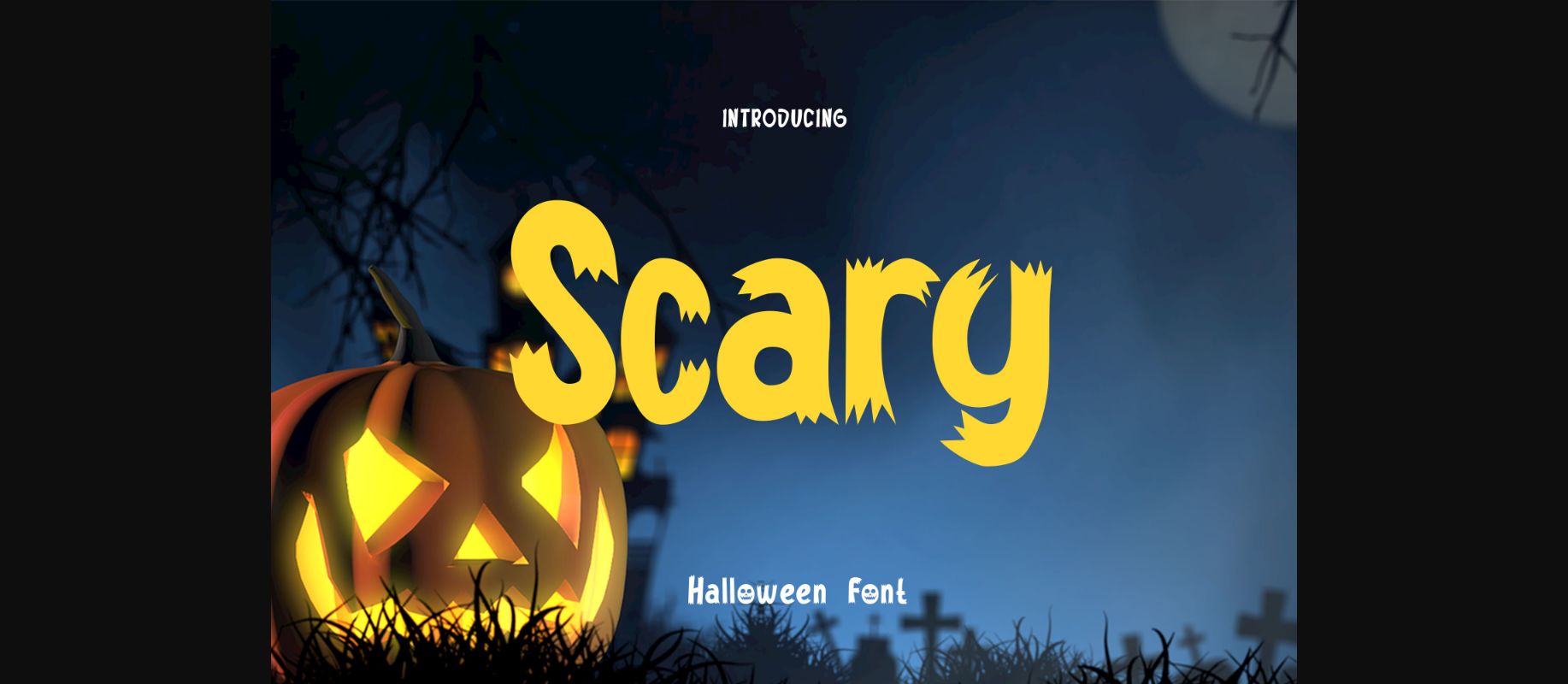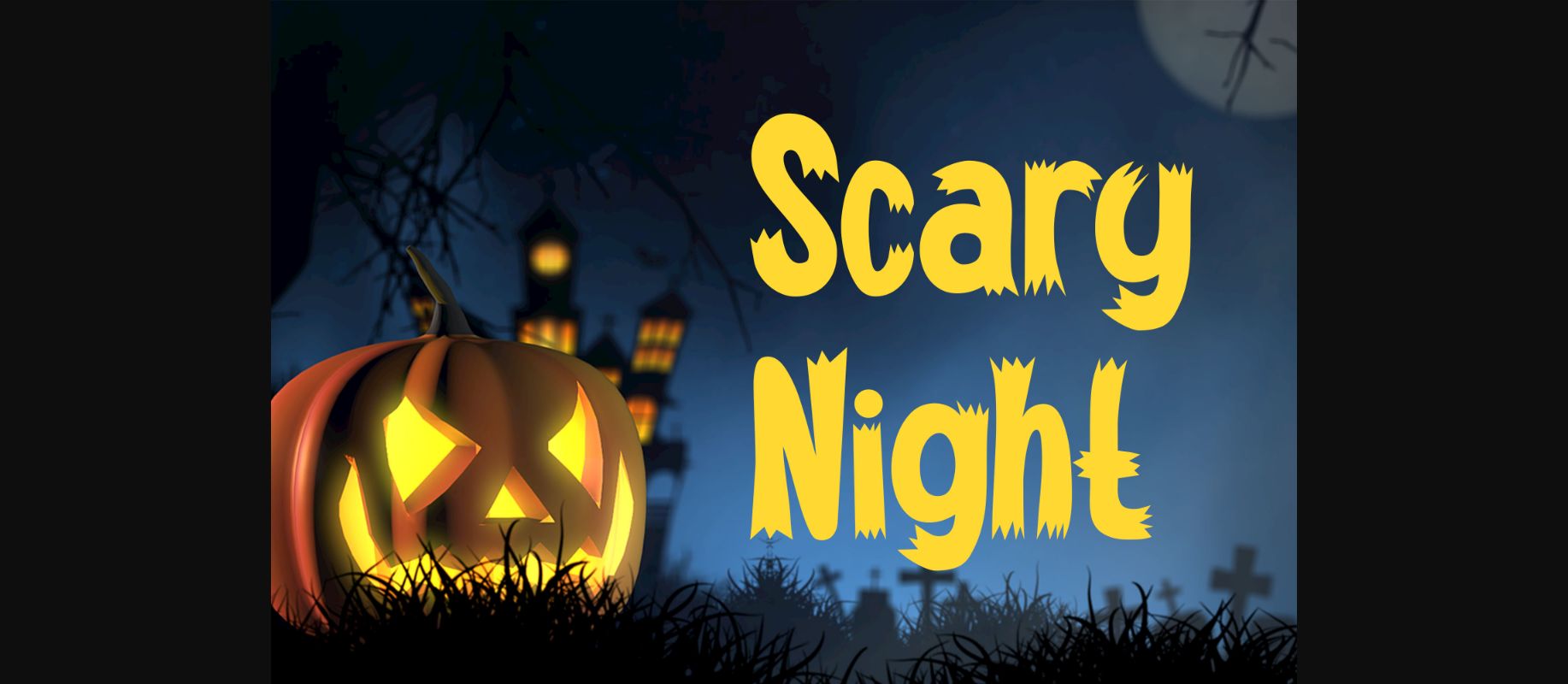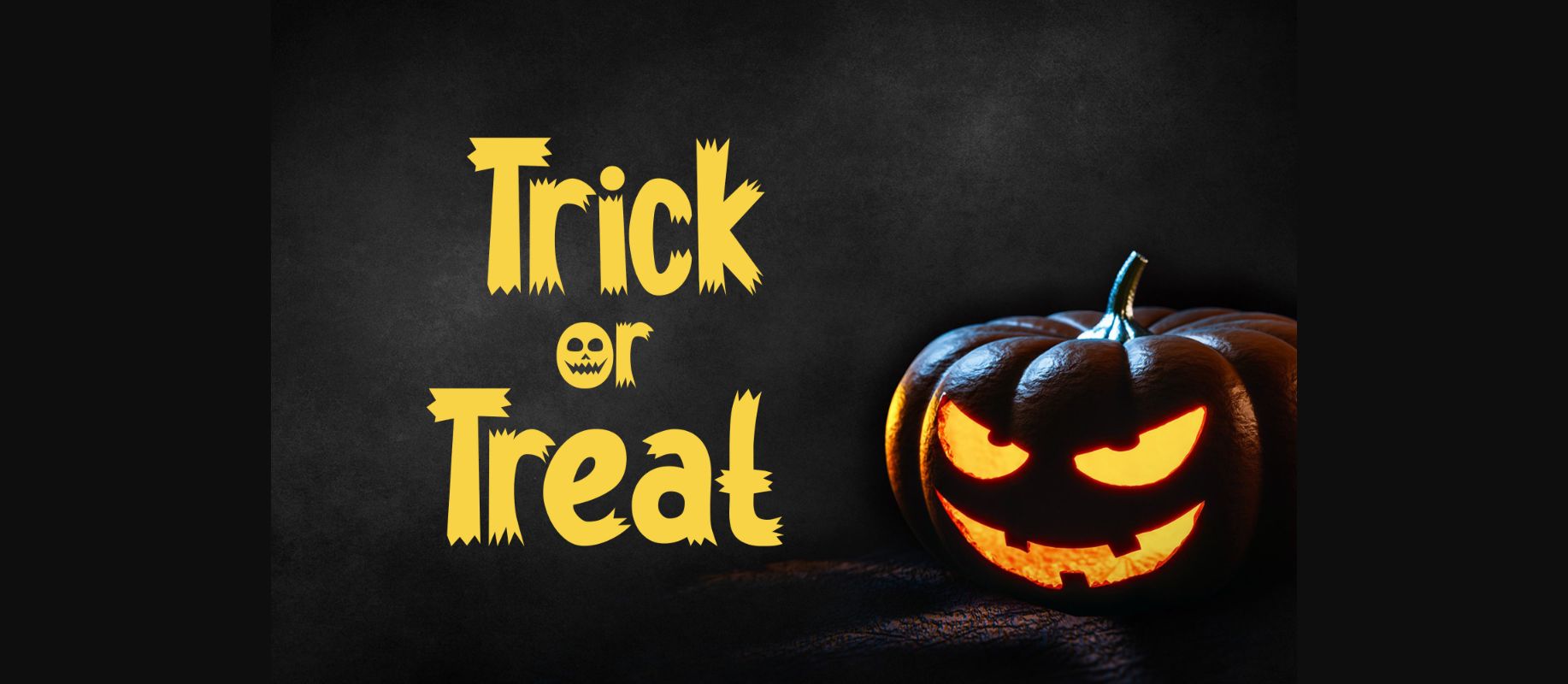
HomeDecorative FontsScary Font Decorative Fonts Scary Font FacebookXPinterestWhatsApp 1 of 6 ... Scary Font Poster 2... Scary Font Poster 3... Scary Font Poster 4... Scary Font Poster 5... Scary Font Poster 6... About Scary Font Scary is a thick-lettered and spooky decorative font. It is perfectly suitable for any Halloween-related project or crafty idea! The only limit is your imagination. DOWNLOAD NOW People also explored Comic Candy Font Jumpstraight Font Luke Font Dark Grey Heather Bella Canvas 3001 Breakfast Up to You Font Cheval Baby Cute Font Holiday Font 452 0 TagsScaryScary Font Previous articleButterfly Fire Monogram FontNext articleDove Egg Monogram Font LEAVE A REPLY Cancel reply Comment: Please enter your comment! Name:* Please enter your name here Email:* You have entered an incorrect email address! Please enter your email address here Website: Save my name, email, and website in this browser for the next time I comment. Personal Use Free Metal Lord Personal Use Free Read more about this font Free Personal Use Free Read more about this font Valentines Day Personal Use Free Read more about this font Bellarin Personal Use Free Read more about this font BLOG Free vs Paid Fonts: Why Investing in Premium Fonts Is Worth It Free vs Paid Fonts: Why Premium Fonts Are Worth It in 2025 The debate of free vs paid fonts continues in the design world. While... How to Cut Any Font on Cricut: Convert a Font to SVG (Free) 5 Fonts That Will Dominate Design Trends in 2026 Exploring Font Trends